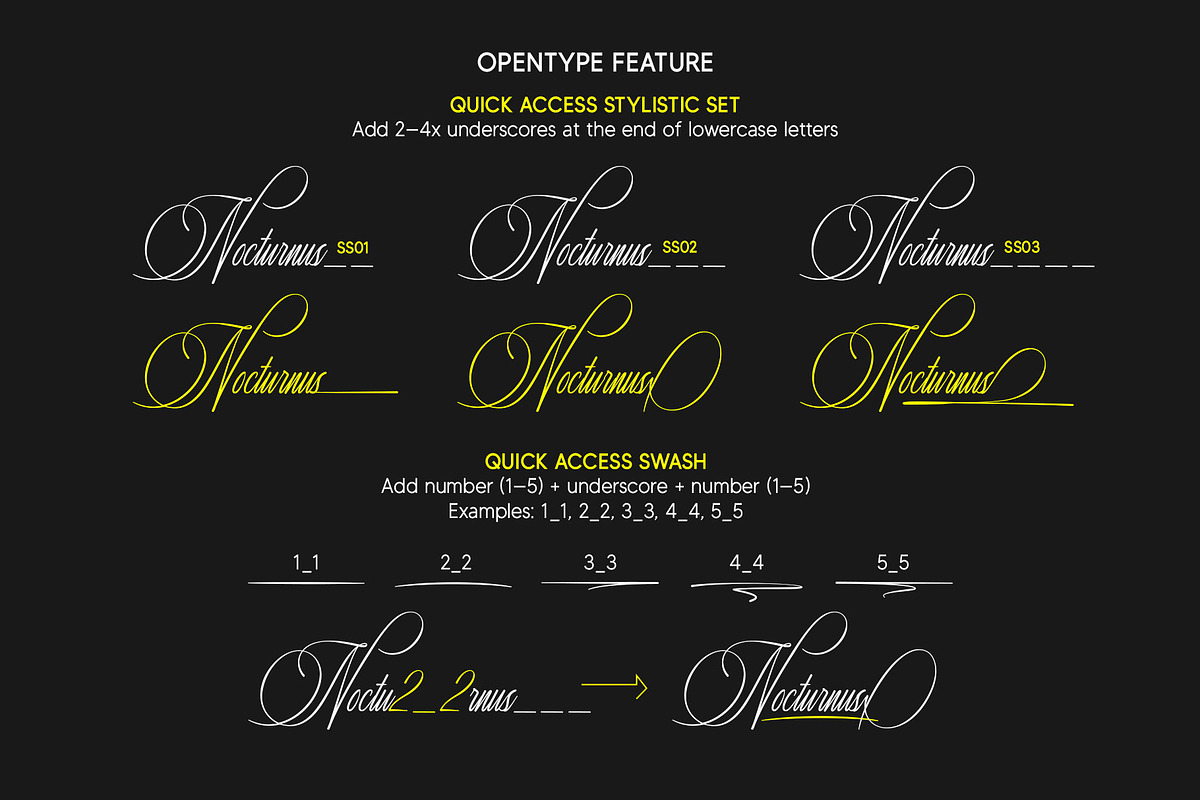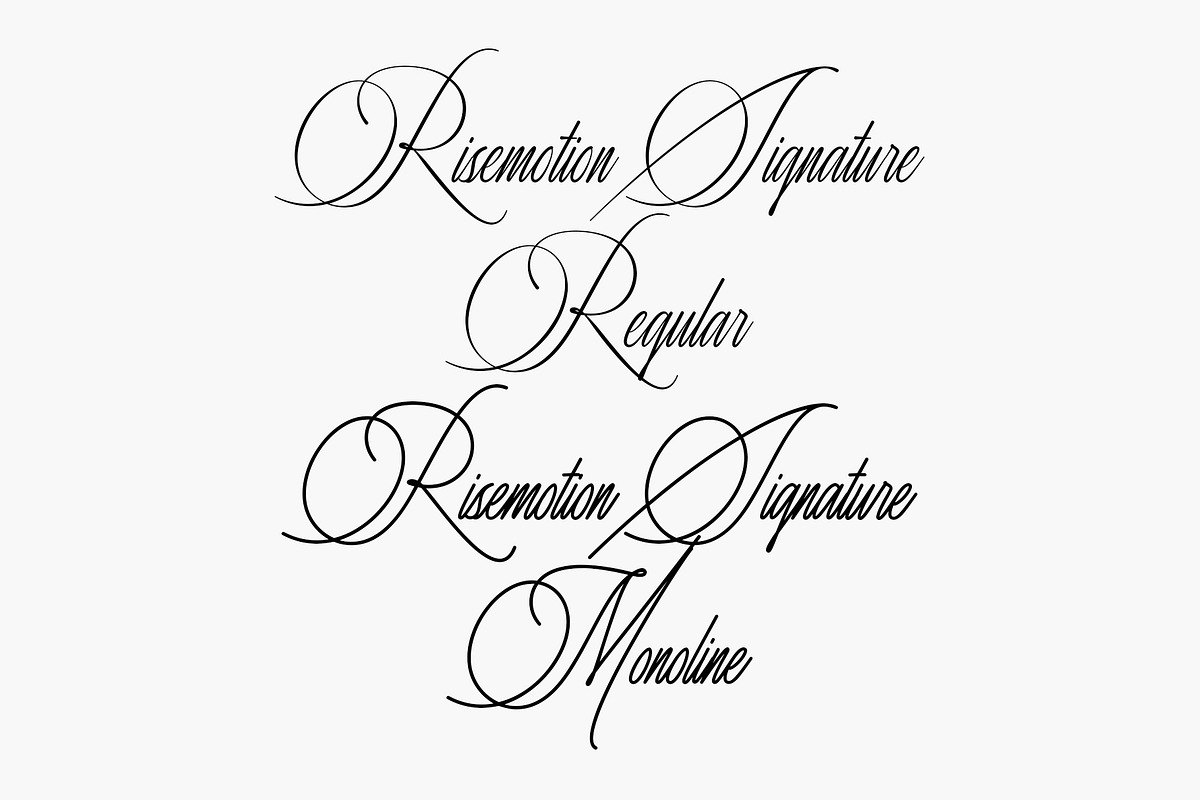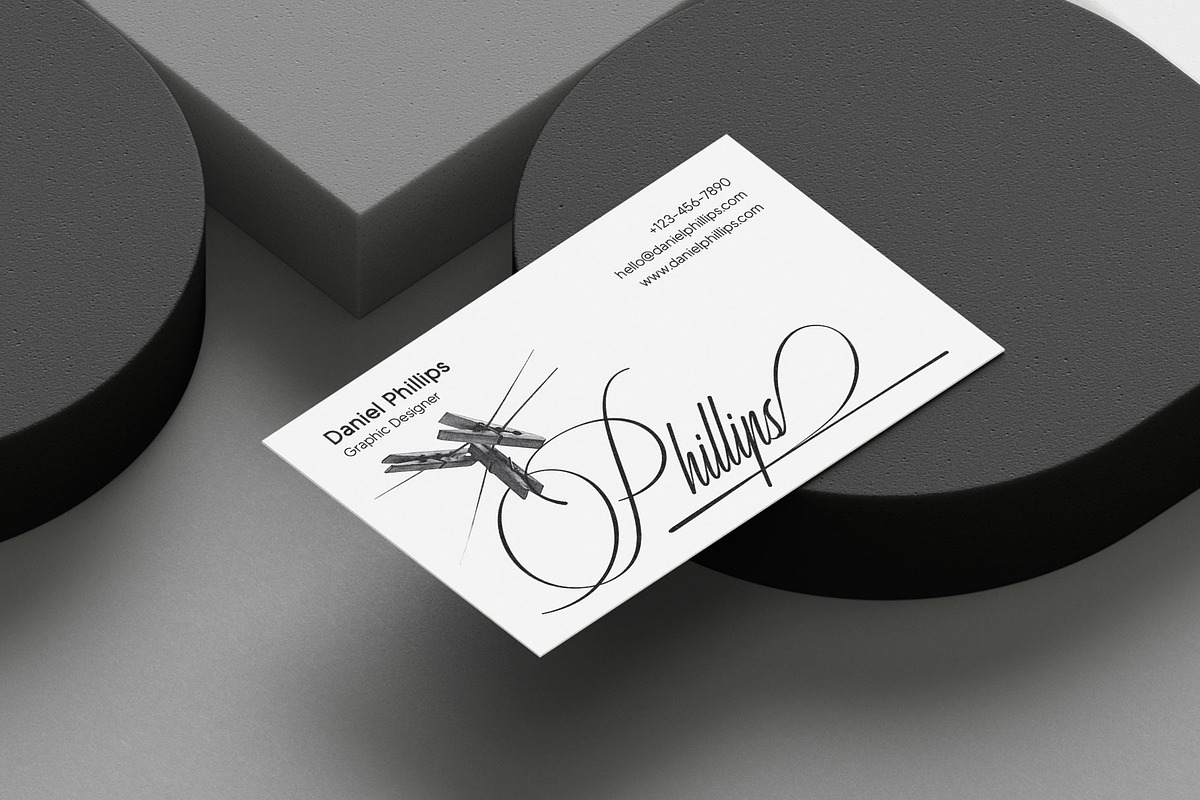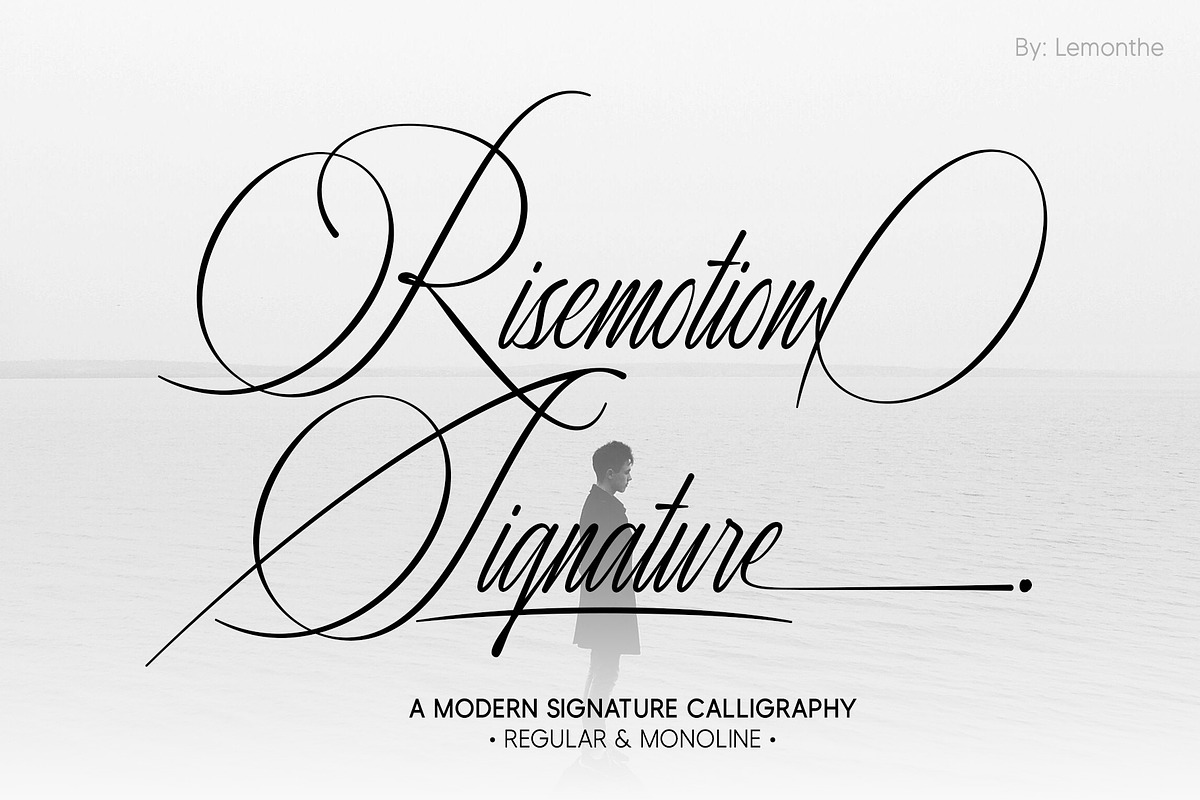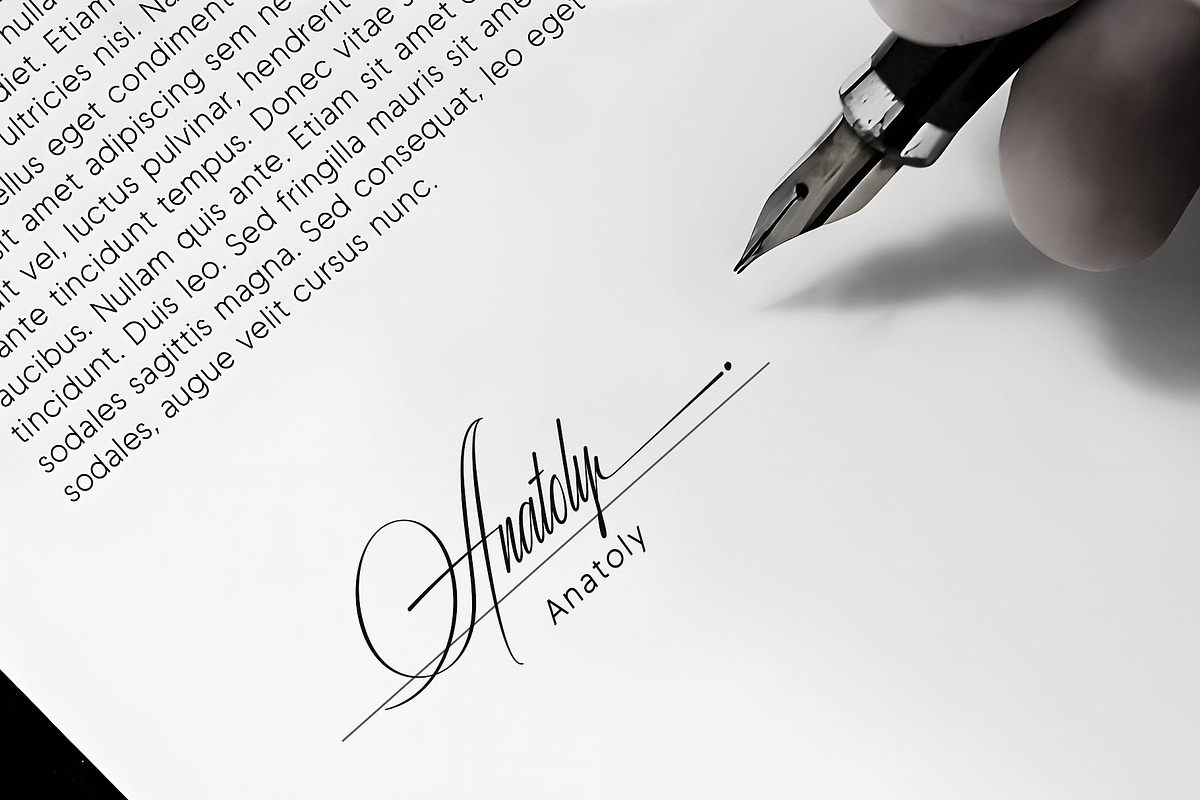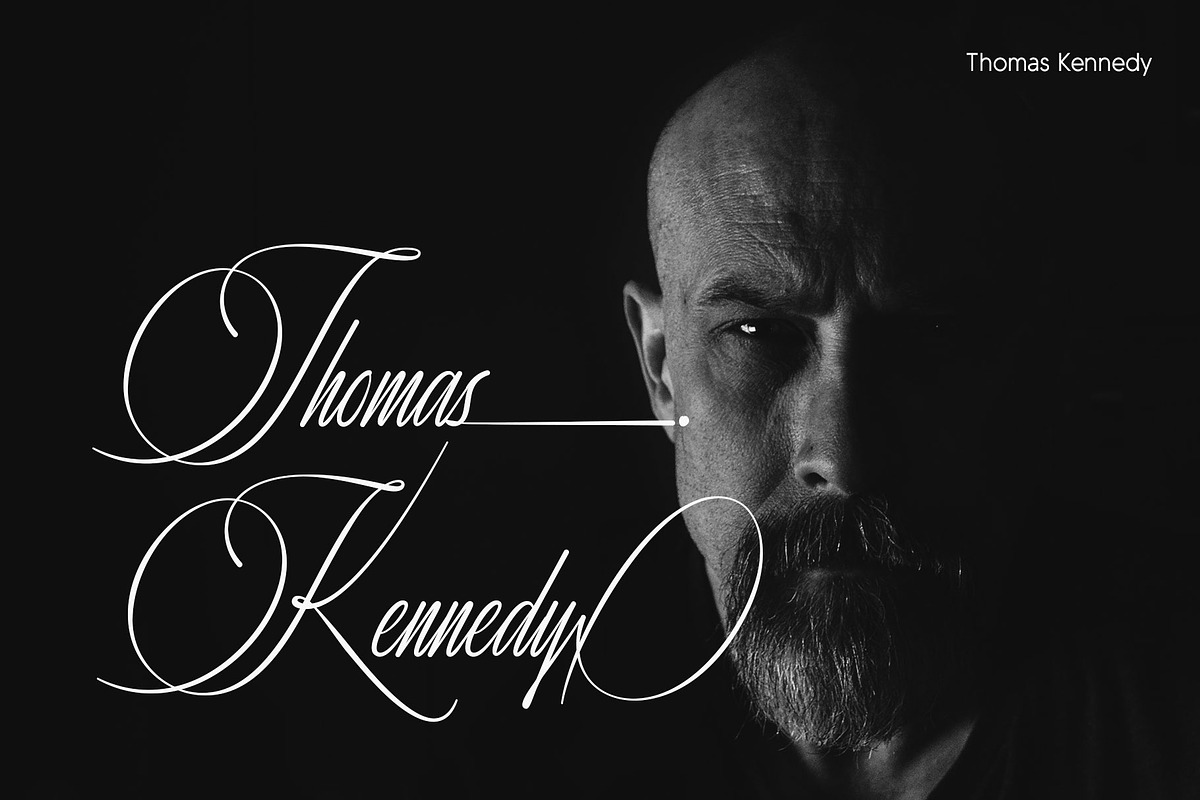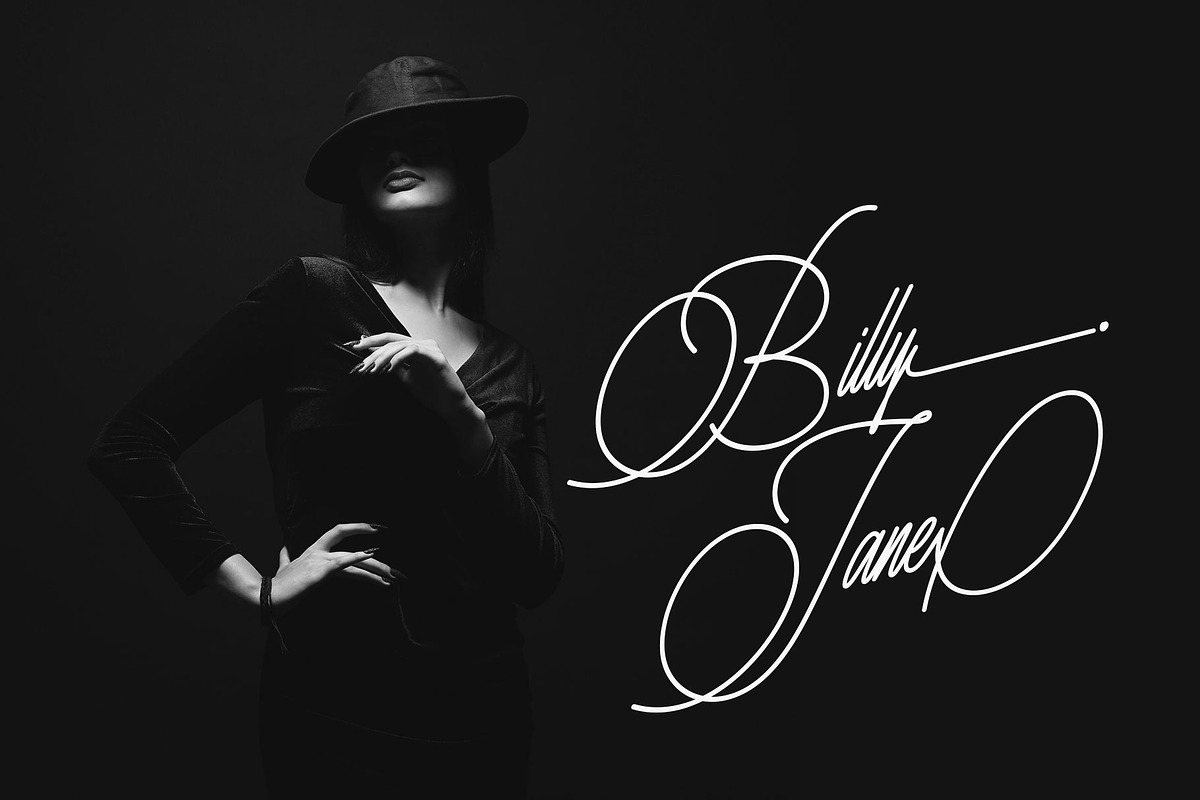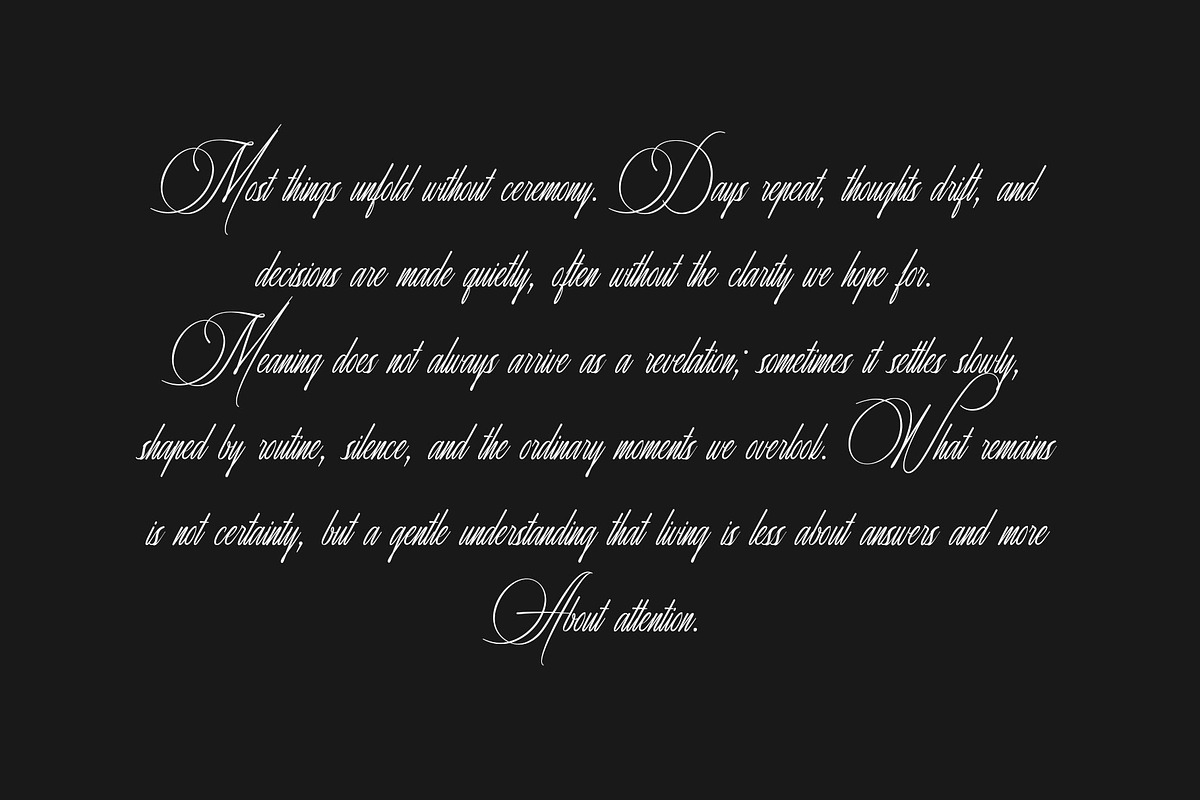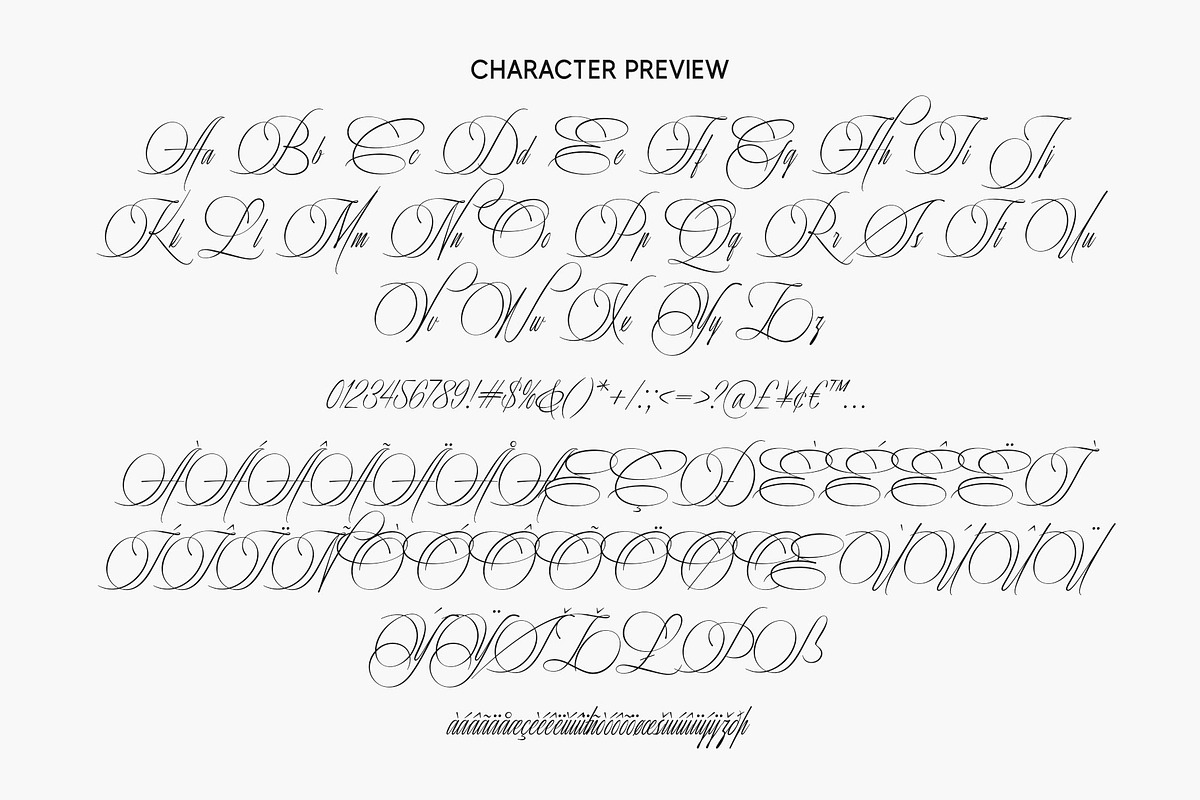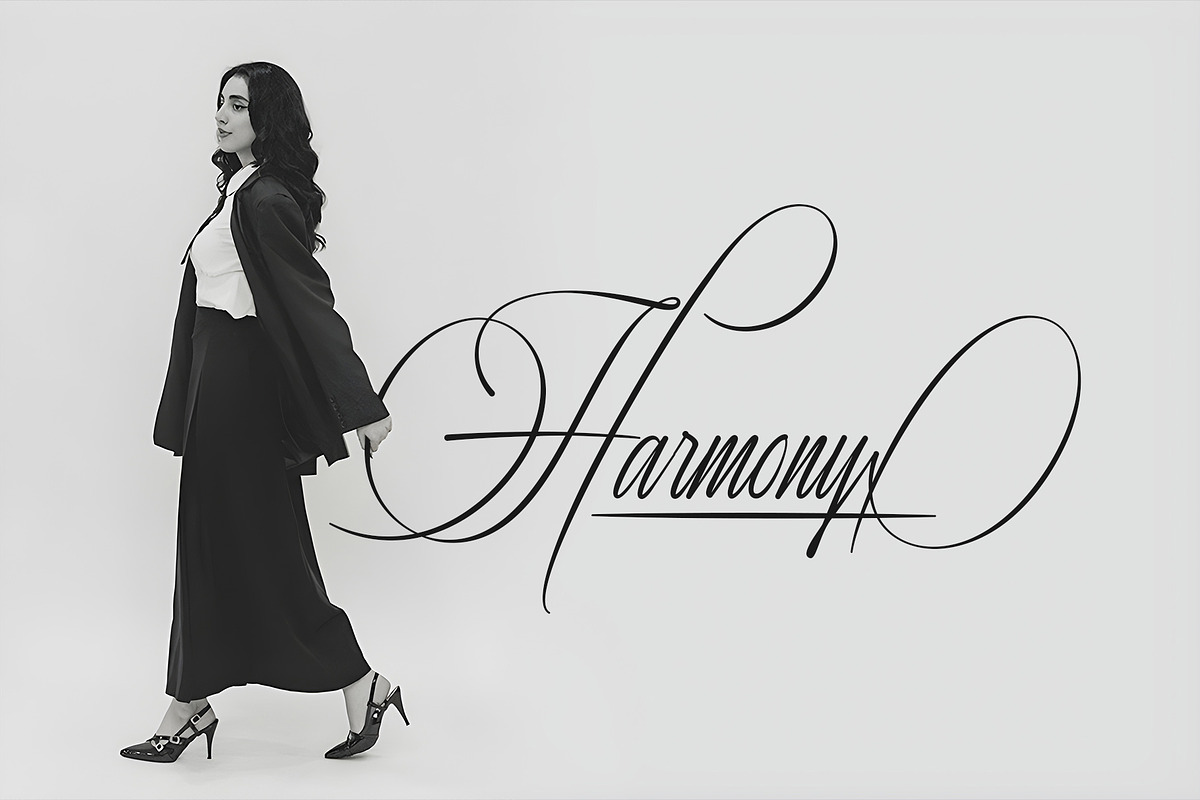
Risemotion Signature Font
Risemotion Signature is a modern signature calligraphy font built with controlled letterforms, balanced stroke contrast, and consistent spacing. The font is designed to maintain readability and visual structure while supporting connected letterforms and decorative elements in a stable manner. Its construction allows flexible use across various design contexts, including branding, logos, wedding materials, editorial layouts, packaging, and digital graphics. Risemotion Signature provides a functional and consistent signature-style lettering solution suitable for professional design needs.
- Regular & Monoline
- Stylistic Set
Quick access
- SS01: Add 2x underscores at the end of lowercase letters a-z
- SS02: Add 3x underscores at the end of lowercase letters a-z
- SS03: Add 4x underscores at the end of lowercase letters a-z
- Swash: Add number (1–5) + underscore + number (1–5) Example: 1_1, 2_2, 3_3, 4_4, 5_5